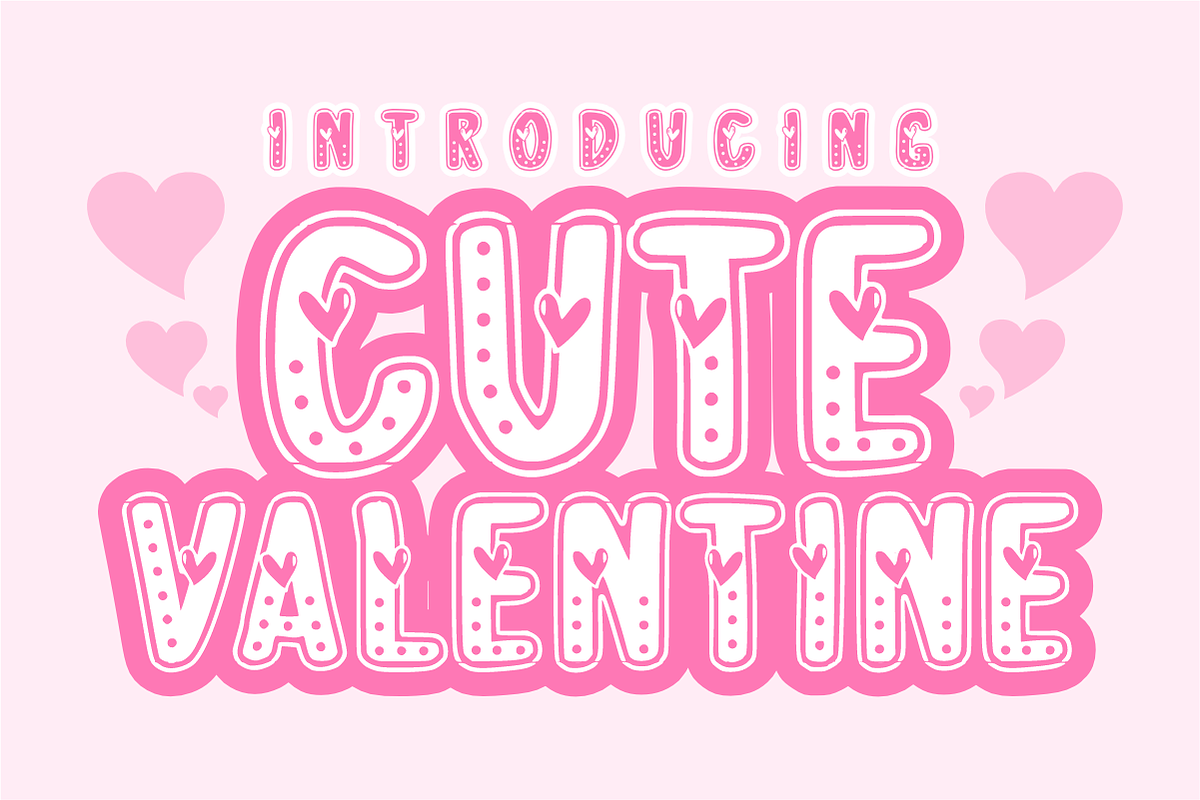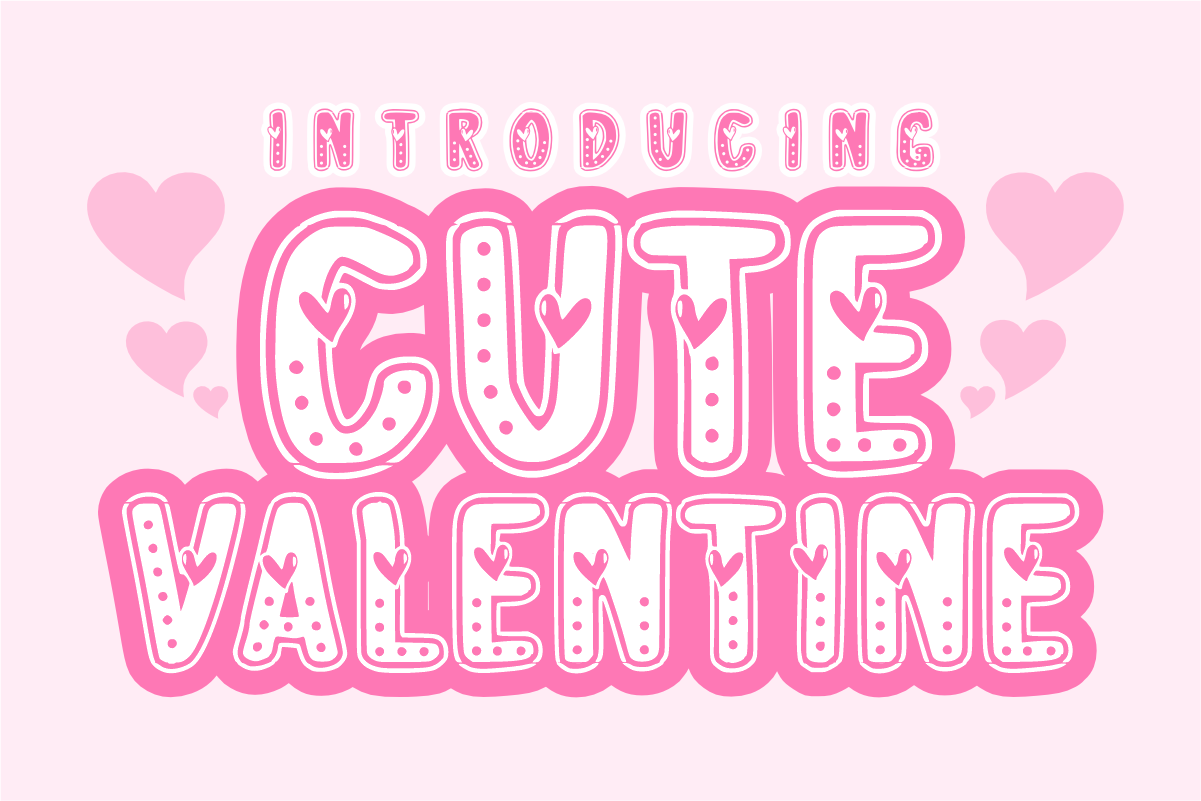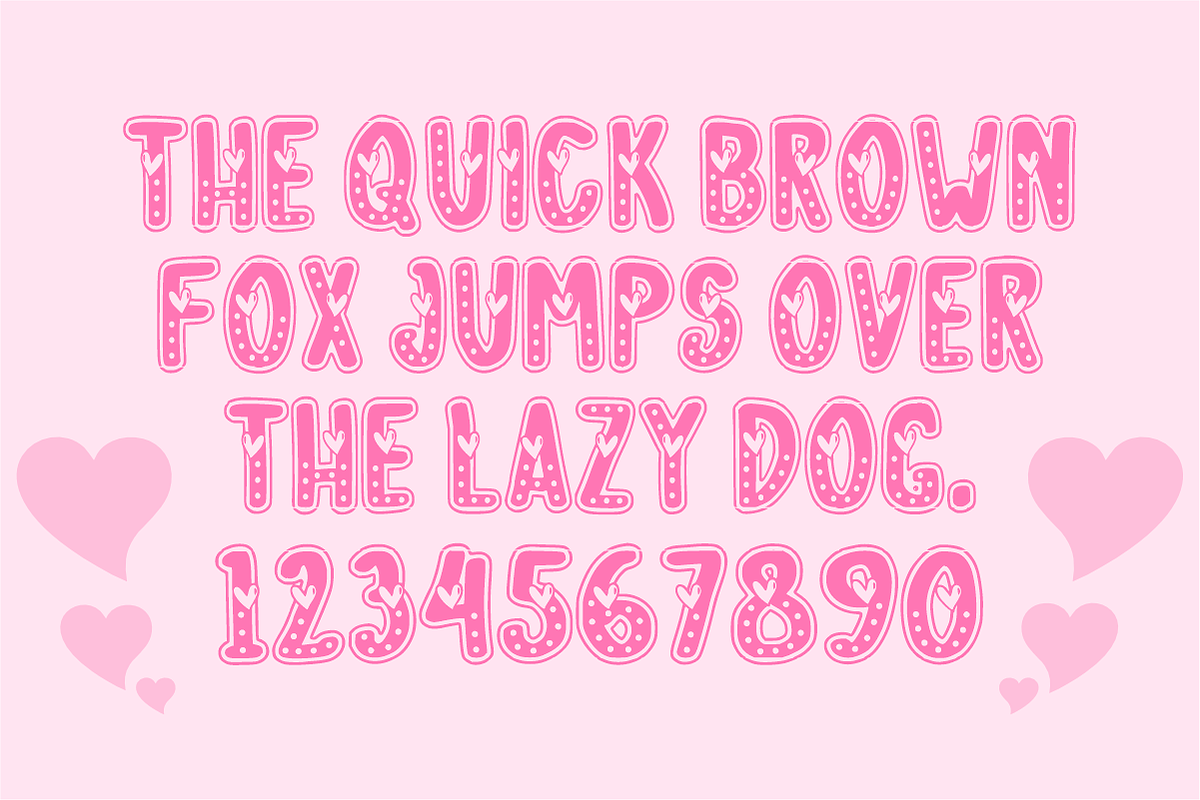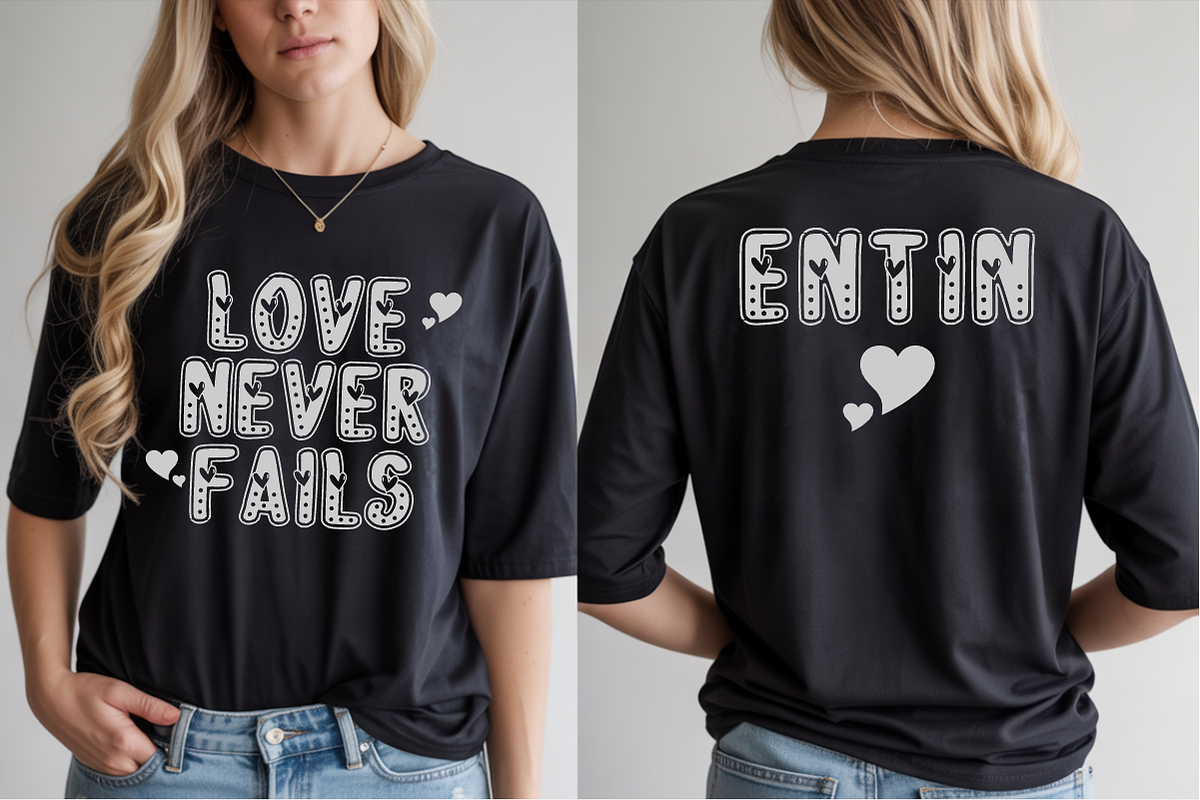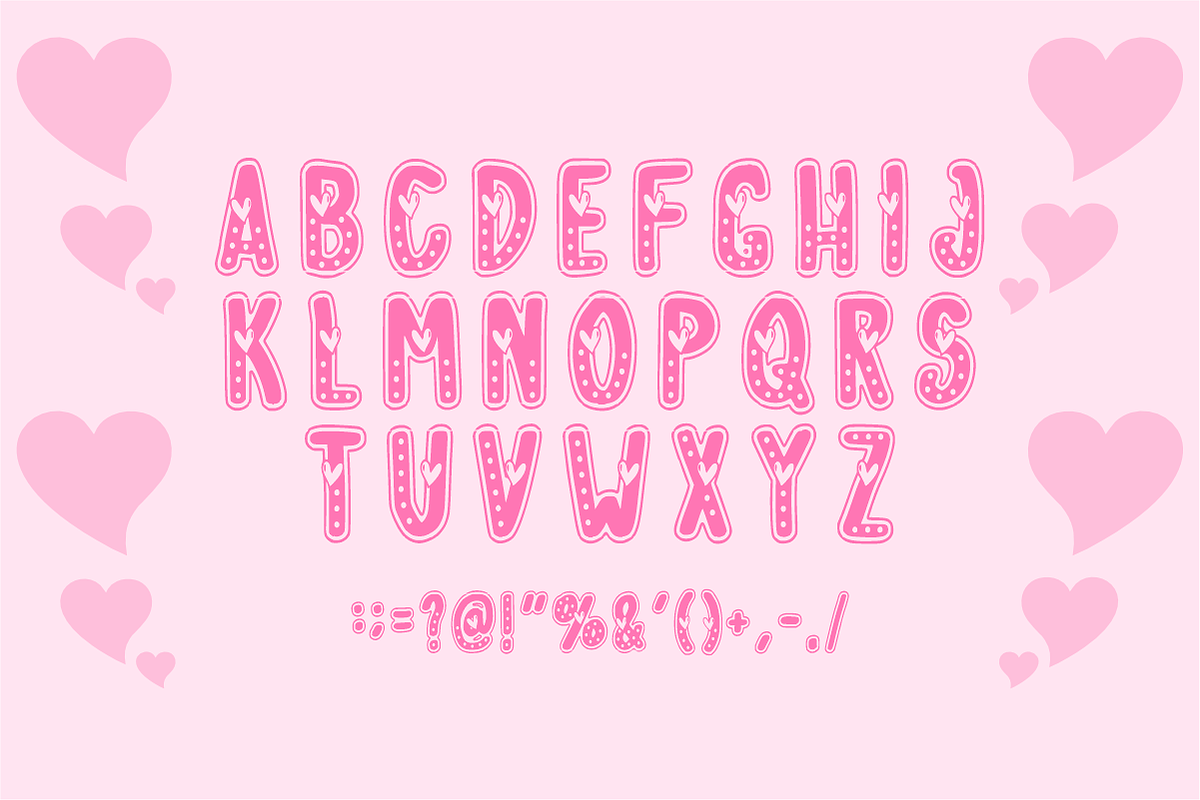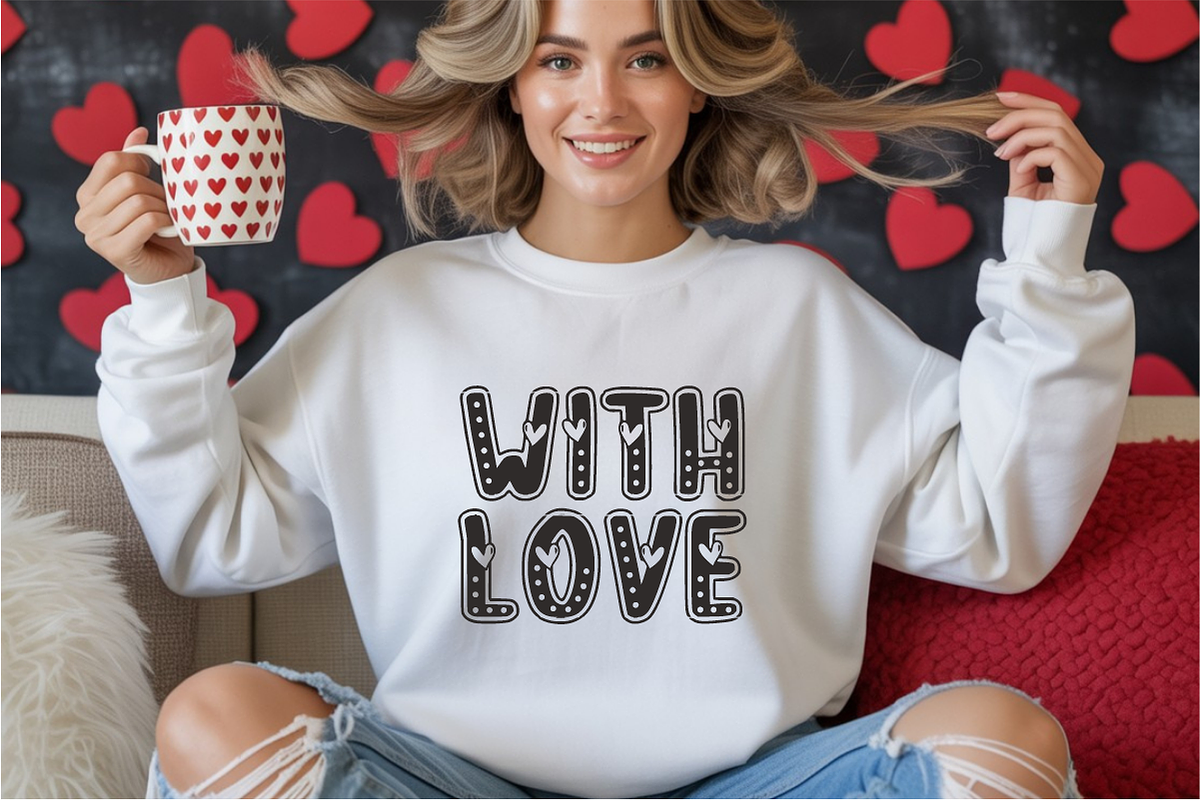
Cute Valentine - Playful Heart Font
Cute Valentine is a sweet, chunky display font featuring a playful bubble style beautifully decorated with adorable inner heart shapes and delicate dot patterns. Infused with a romantic, whimsical energy, this lovely font is perfect for Valentine's Day themes, romantic greetings, and cheerful craft designs. Every character is cleanly vectorized to guarantee smooth, effortless weeding and cutting on Cricut and Silhouette machines.
Uppercase Character Set
Numbers & Basic Punctuation
Ideal For:
Valentine's Day greeting cards, love letters, and romantic wedding invitations
Custom die-cut stickers, romantic labels, and vibrant planner decals
Kids' apparel, baby onesies, and playful t-shirt merchandise
Nursery wall art, anniversary party decorations, and festive banners
Creative business branding, cute product packaging, and whimsical logos
Cricut, Silhouette, and DIY vinyl crafting projects